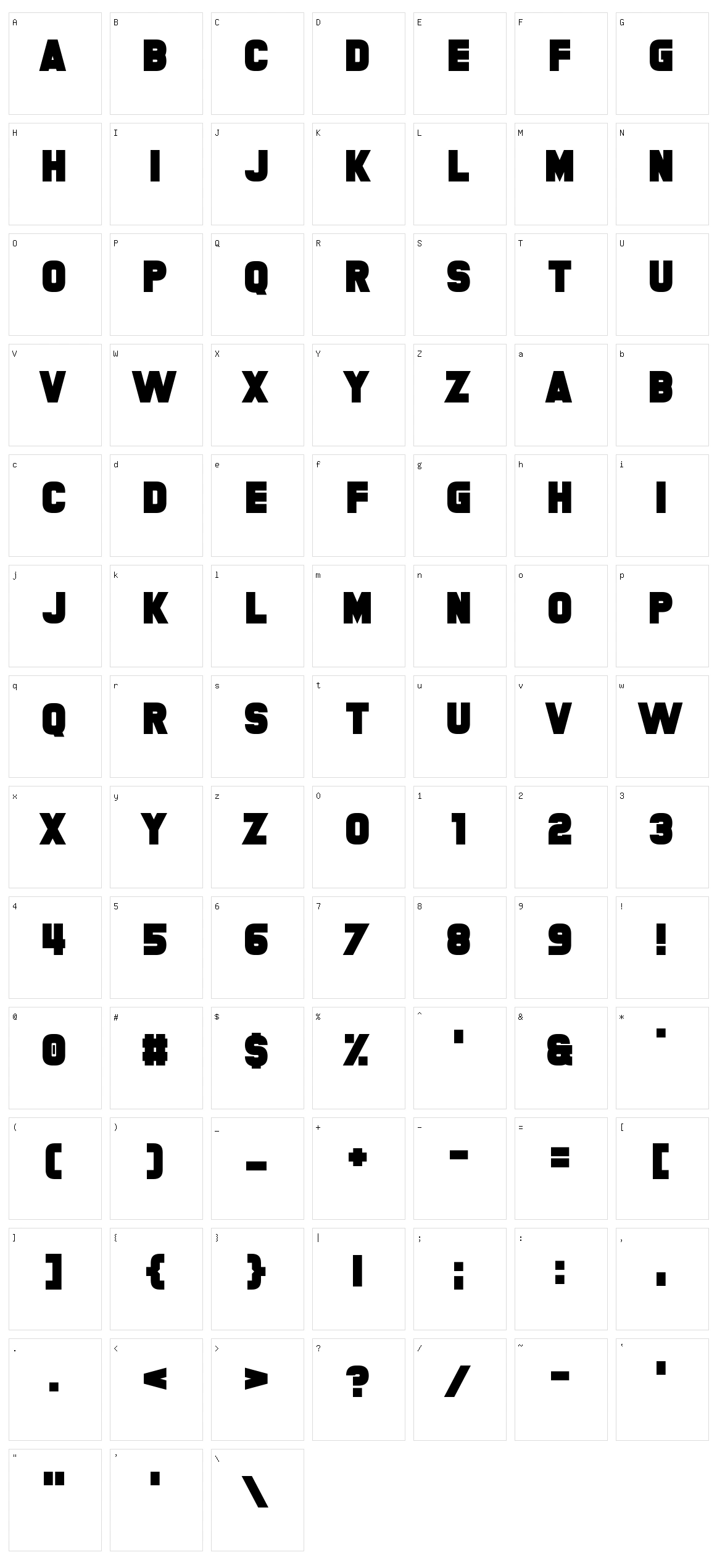
The free font Trample Over Beauty is carefully designed by Chequered Ink, showcasing a thoughtful balance of creativity and usability and falls under the Sans serif font style. When you download the ZIP file, it contains only 12.02 KB of font files, making it lightweight and quick to download. Please review the license details below to understand permitted usage and distribution rights. If license information is not available, we recommend using this font for personal projects only or contacting the author directly for commercial usage permissions.